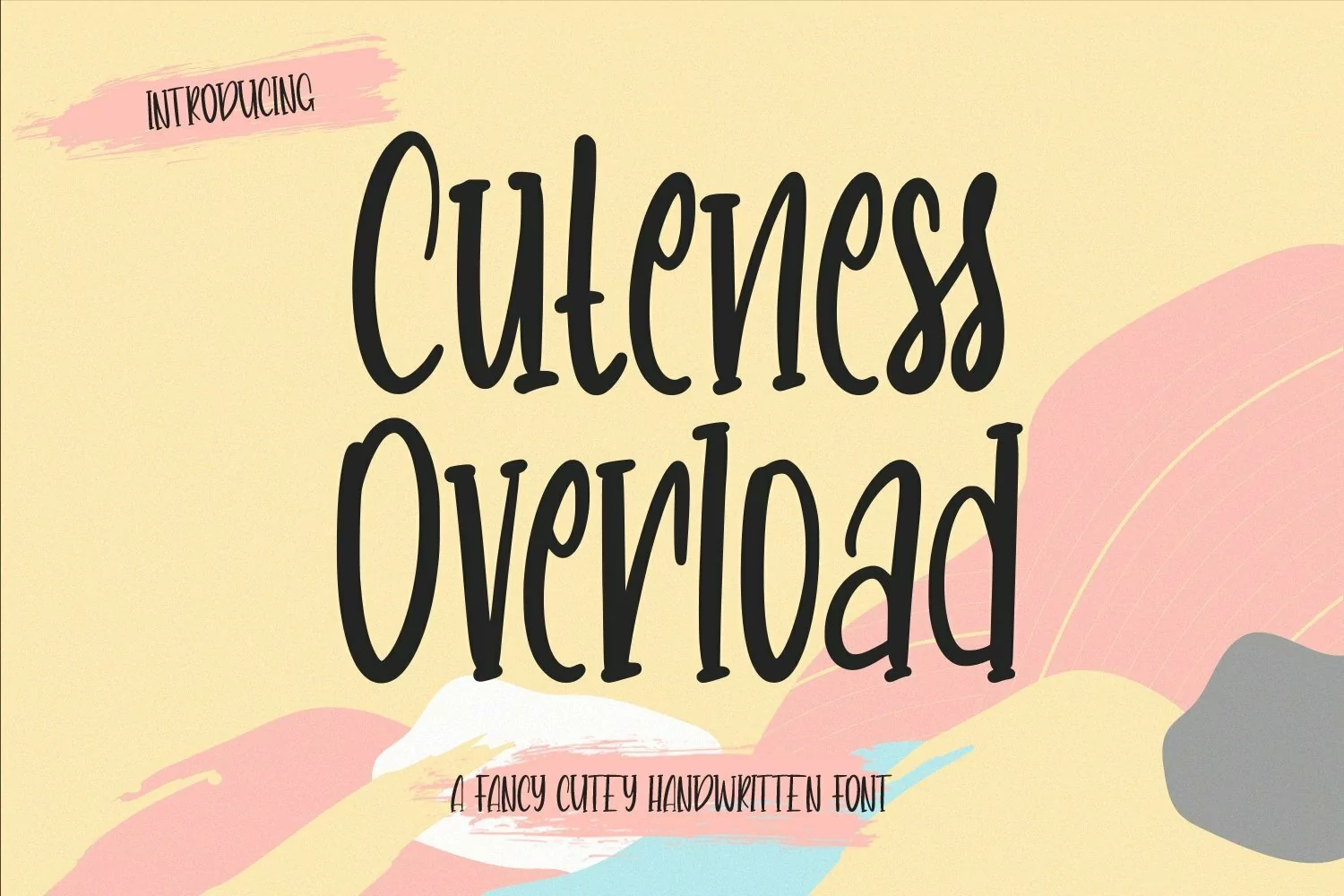
CutenessOverload - Cutey Handwritten Font that contain lowercase, uppercase, symbol, and also support multi language. There’s a lot ligatures in this font. This Font also comes with ligatures, alternates and many more. this font suitable for fashion, branding, catalog and other design what you want.